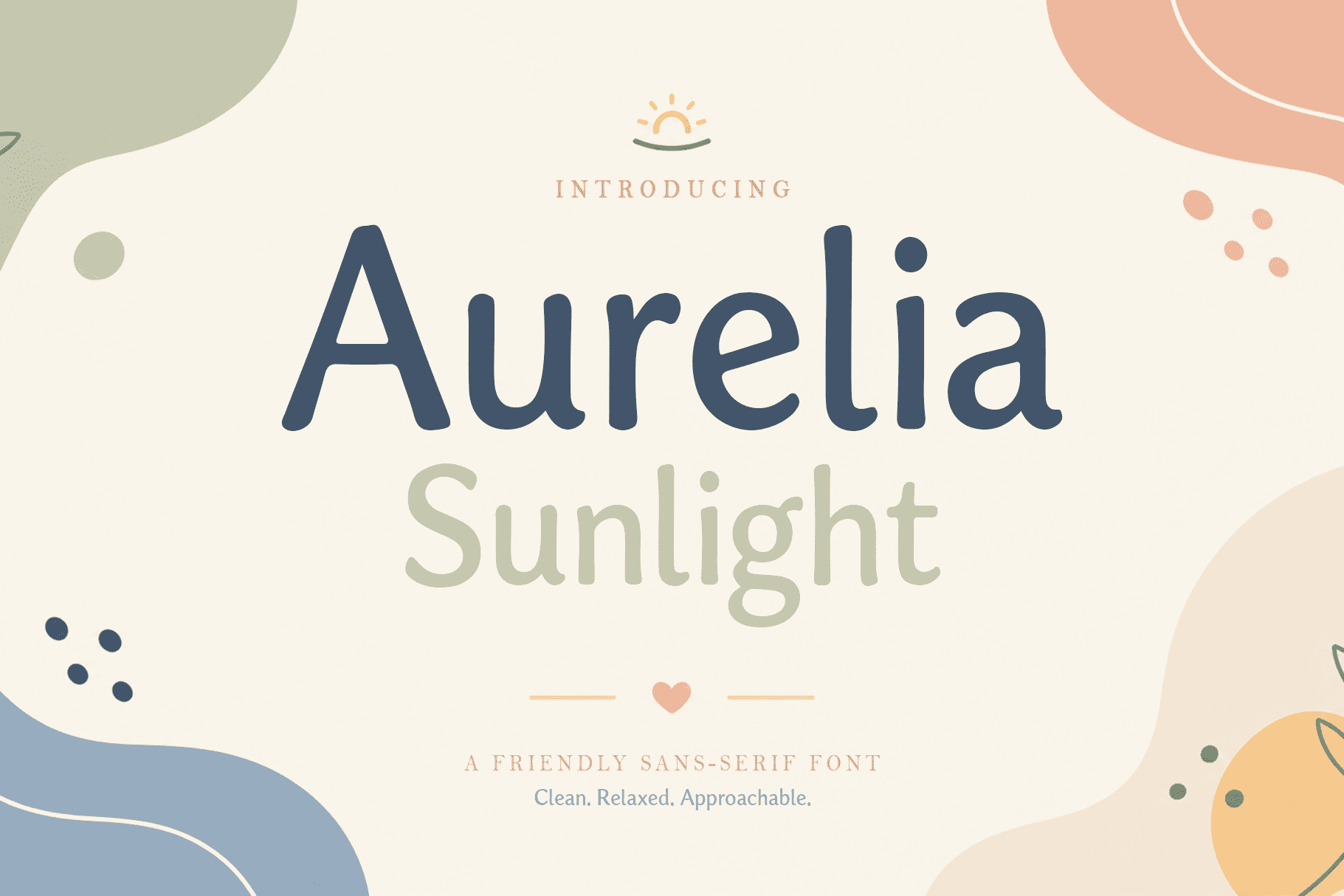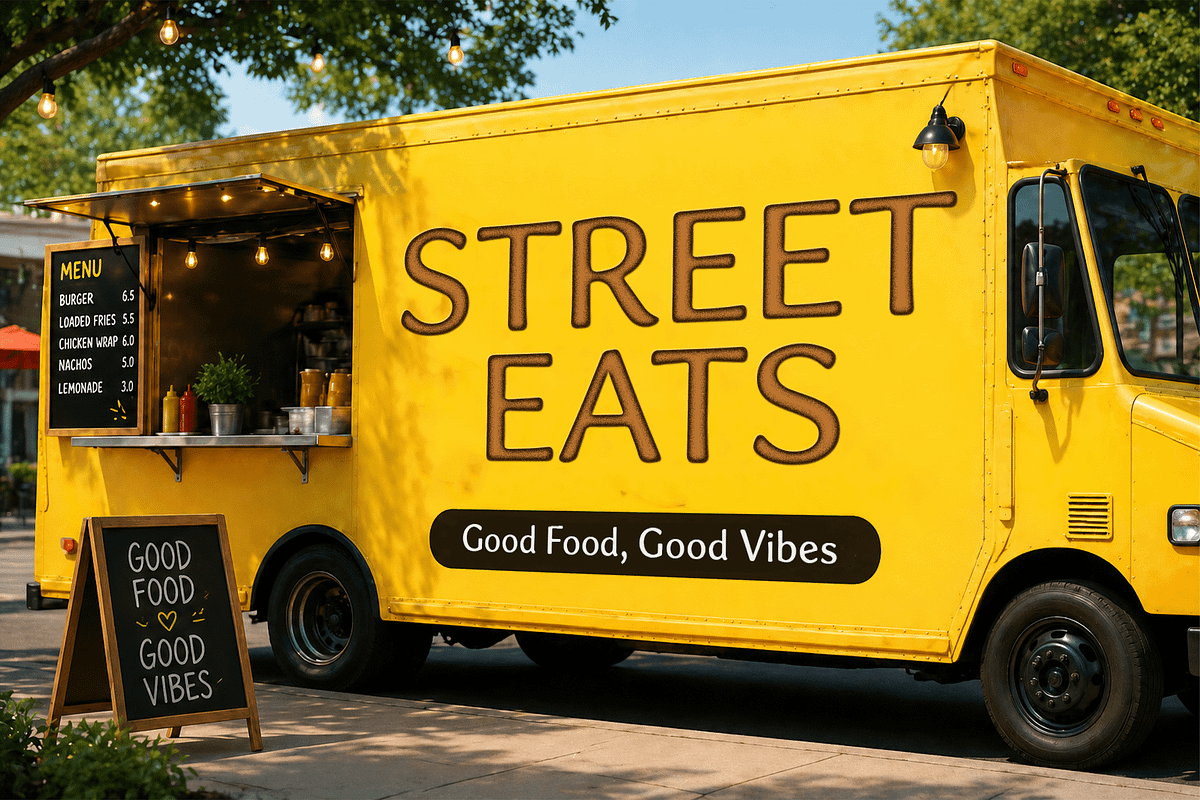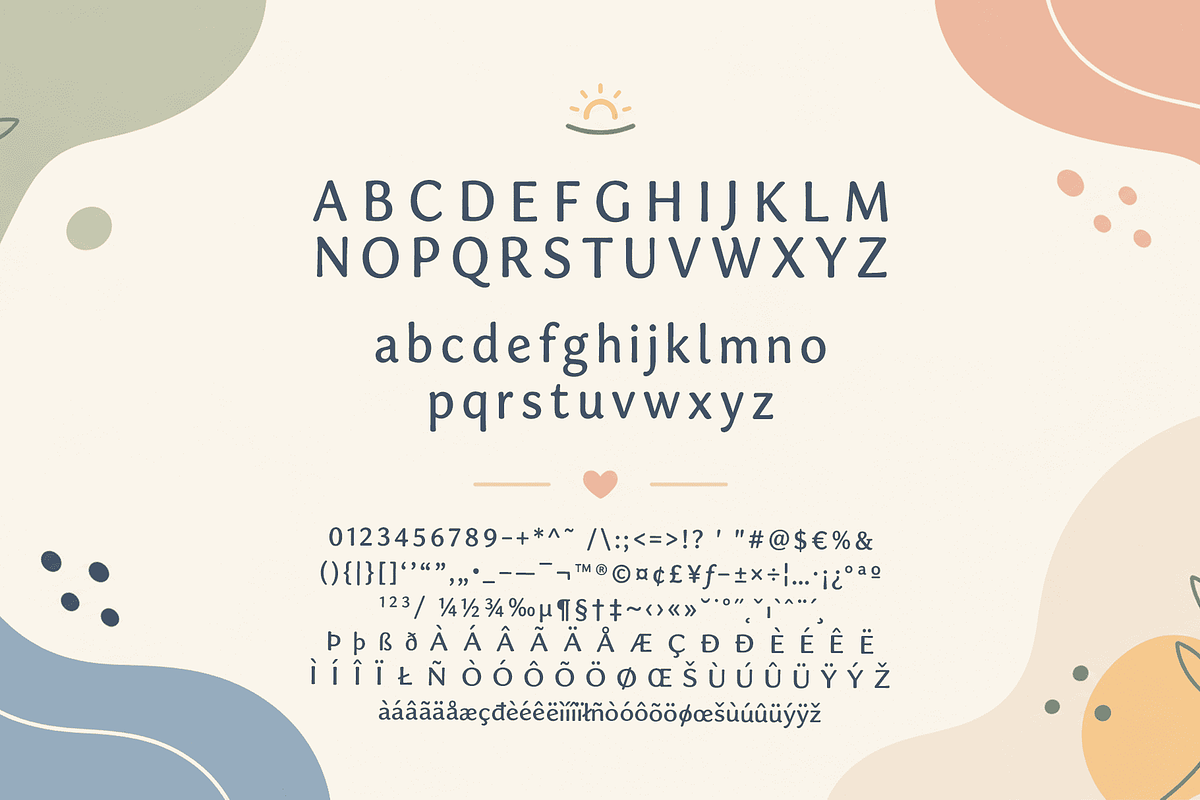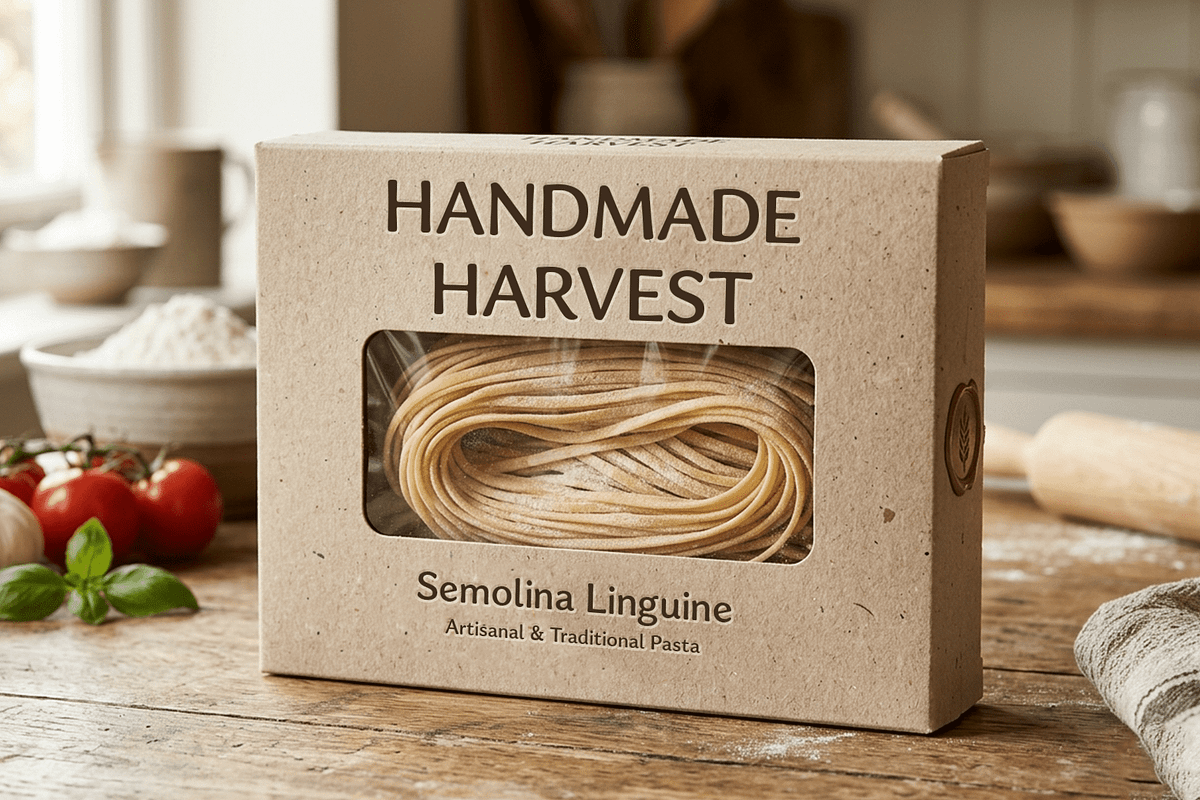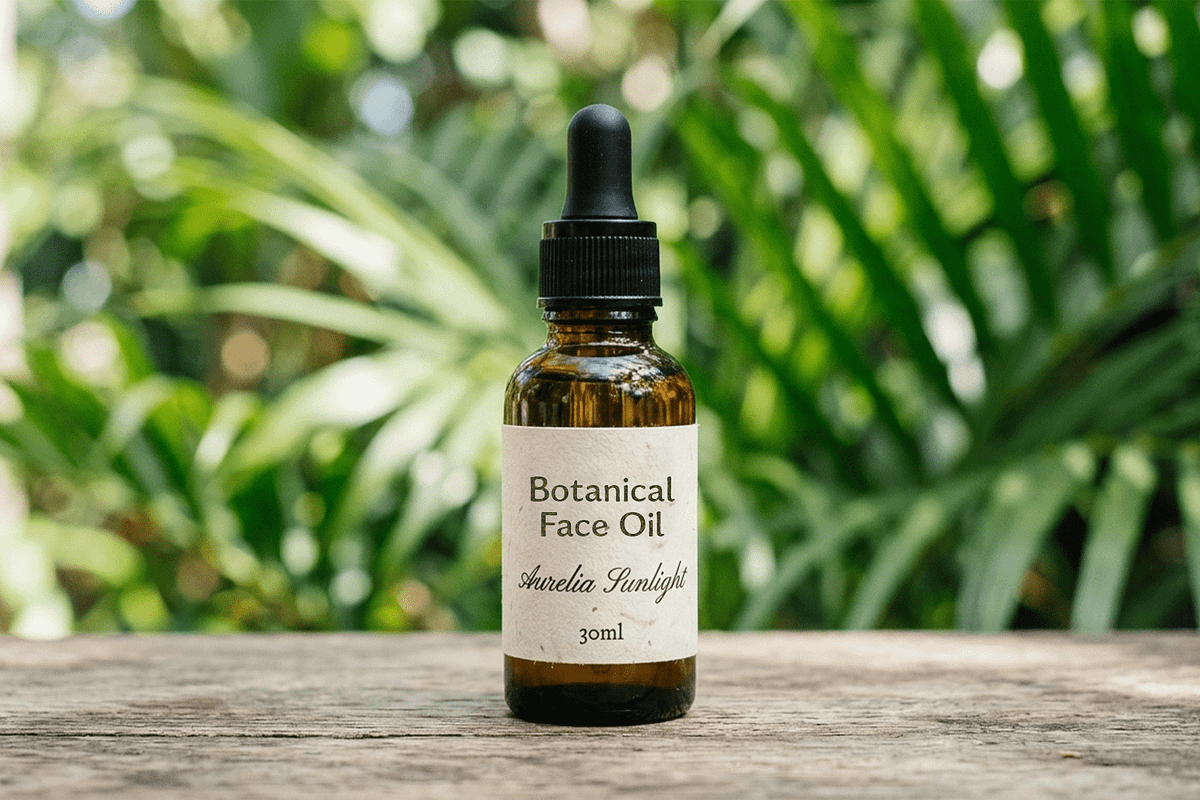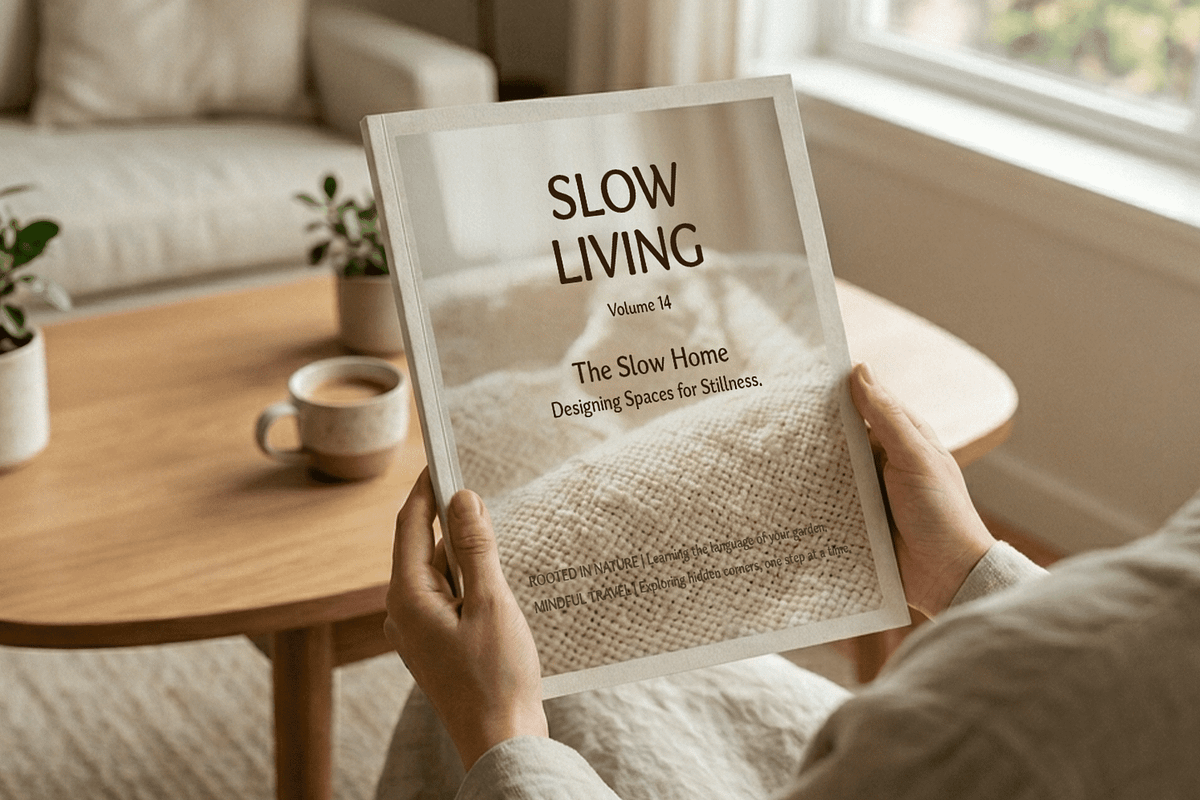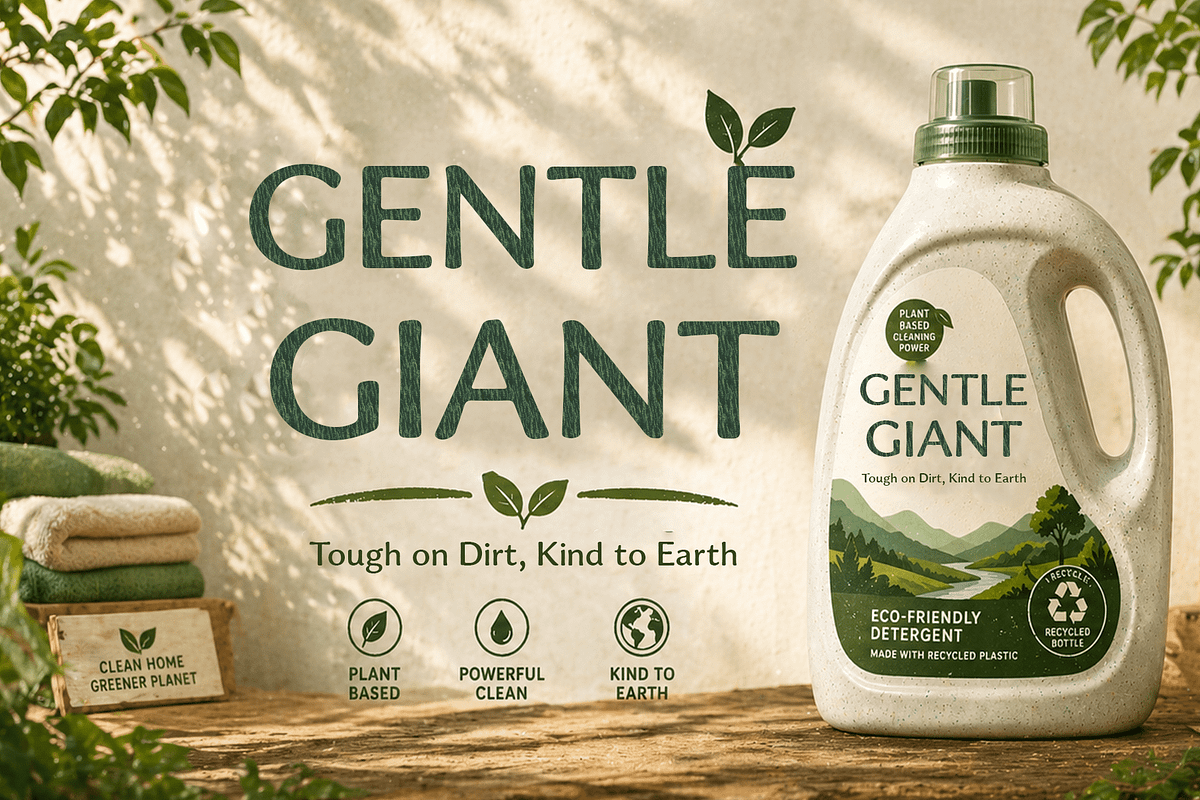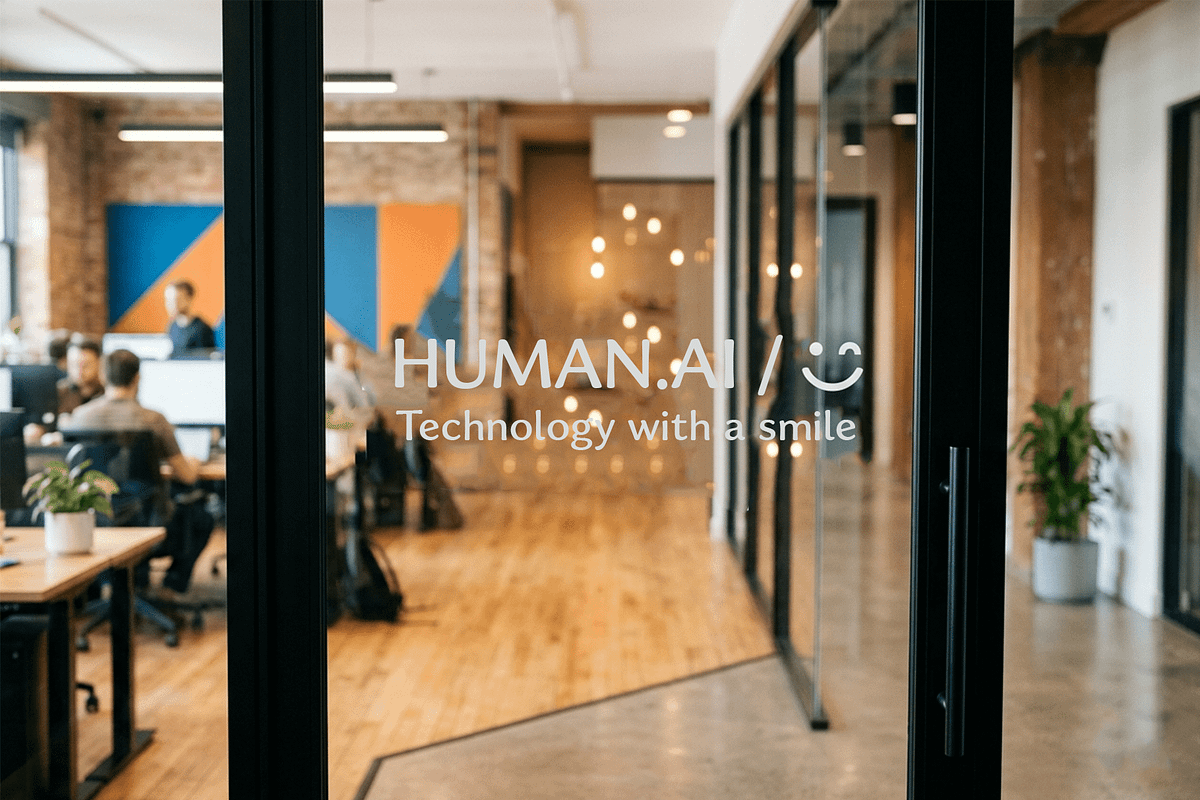
Aurelia Sunlight Font
Aurelia Sunlight is a warm, humanist display font that radiates softness and character. Designed with organic curves and confident strokes, it brings a friendly yet refined presence to any design — perfect for branding, editorial headers, packaging, and creative projects that want to feel both approachable and polished.
Whether you're designing a logo, a wedding invitation, a social media post, or a product label, Aurelia Sunlight adds that sun-kissed warmth and personality that makes your work truly stand out. Pair it with a clean serif or minimal sans-serif for a timeless, editorial look.